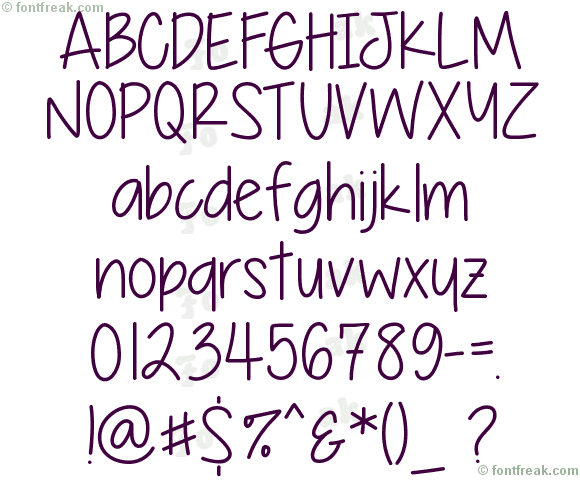
Running for a cause
About Running for a cause
Running for a Cause is a unique handwritten font created by Vanessa Bays. This display typeface captures the spirit of movement and motivation, making it a perfect choice for a variety of projects. The font features a playful yet legible design, characterized by its casual stroke weight and charming, organic curves. The strokes have a consistent weight, providing a friendly and approachable feel. Its slightly varied spacing adds to its handwritten quality, making it ideal for projects that require a personal touch.
This font excels in specific use cases, including charity event flyers, running competition banners, and motivational posters. It’s particularly effective for social media graphics promoting health and fitness initiatives, as well as websites focused on community engagement. Small business owners in the wellness sector will find it equally suitable for branding materials, such as logos and business cards, where a sense of warmth and connection is desired. Content creators aiming to inspire their audience will also appreciate its engaging aesthetic.
The target audience for the Running for a Cause font includes graphic designers seeking to add a personal flair to their projects, small business owners looking to convey a friendly brand identity, and content creators who wish to motivate their followers.